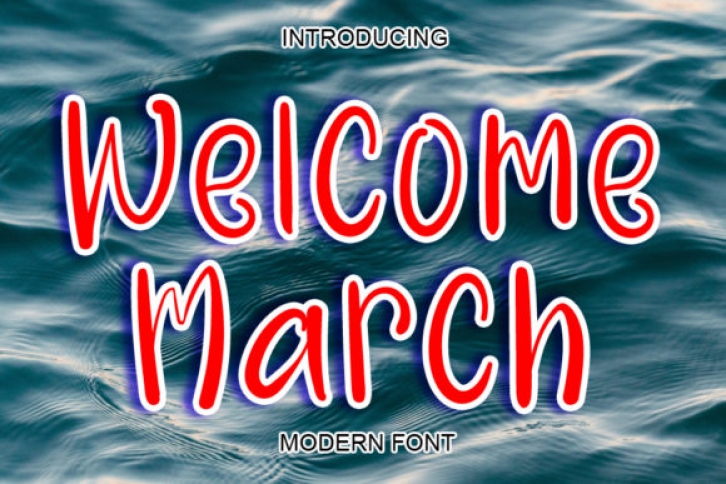
Welcome March is a cute and relaxed display font. Natural and a bit quirky, this font will brighten up each of your designs. Add it confidently to your projects, and you will love the results.